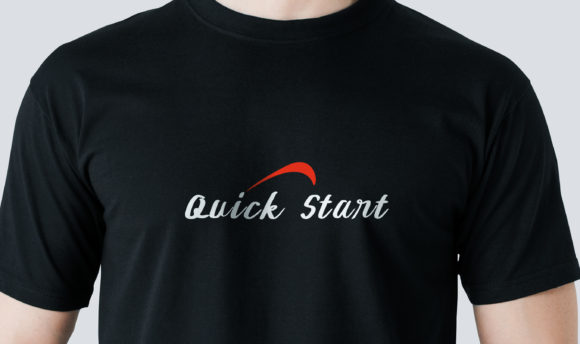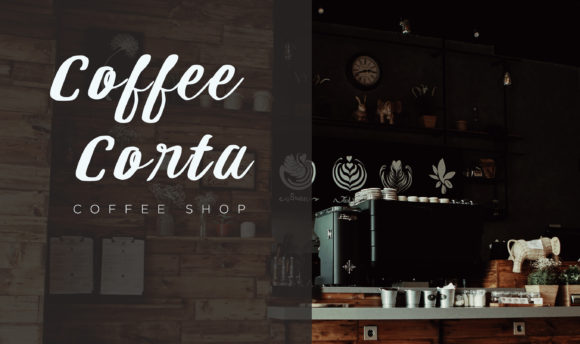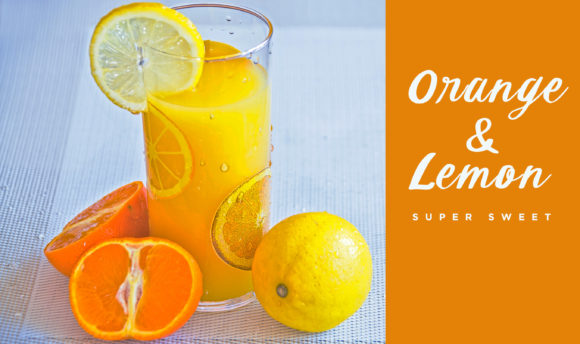
Carolvande Font
About Carolvande Font
Carolvande is a unique and modern handwritten font. This type of font is very suitable for use for product branding, fashion, product branding, logos and so on.